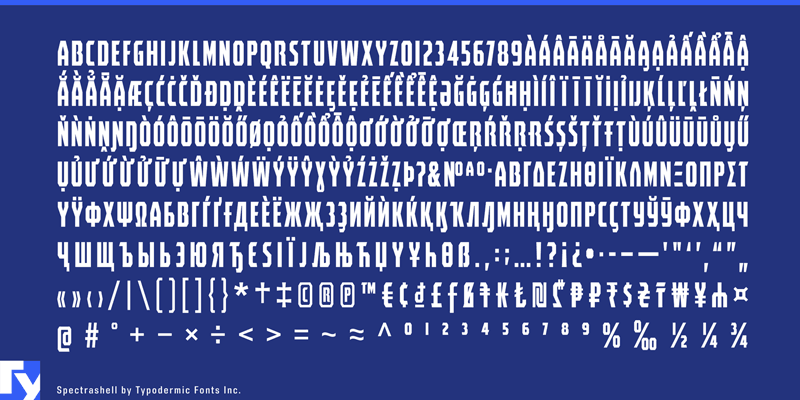
Font name: | Spectrashell |
Spectrashell is a compact headline crammer�heavy capitals designed for maximum impact with sharp angles that are impossible to ignore. Spectrashell began as a logotype for a brand of rugged, hard-shell, waterproof passport cases. The logo was required to fit tightly inside a metal stamped hexagonal badge only 20mm wide. The letterforms needed clear, obvious cuts to compensate for detail lost during the stamping process. These waterproof passport cases have a strong hexagonal pattern. The typeface�s angles were designed to harmonize with hexagons�consider pairing this typeface with hexagonal themes and patterns. Almost all current Latin based languages are supported, including Vietnamese, Cyrillic languages and Greek. This font includes a license that allows free commercial use: sometimes referred to as a desktop license. This allows you to install the font on a computer and use it to create posters, web graphics, game graphics, t-shirts, videos, signs, logos and more. Read the license agreement for details. If you�d like to embed this font in an app, ebook, on the web or anything that�s not covered by the desktop license agreement, visit the link below. You'll find distributors who offer different types of licenses or you can contact me for help. http://typodermicfonts.com/spectrashell Check out the Spectrashell waterproof passport case (I worked on the design) at Amazon USA. http://j.mp/spectrashell Or our site at https://spectrashell.com |